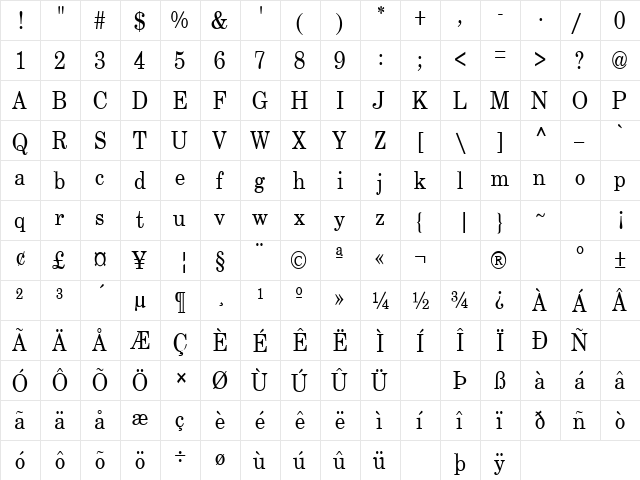
Adam's Apple 8 Regular
Design Context for Adam's Apple 8 Typeface
Adam's Apple 8 offers clean, dependable letterforms without strong stylistic allegiance, making it a practical choice for designers who need flexibility.